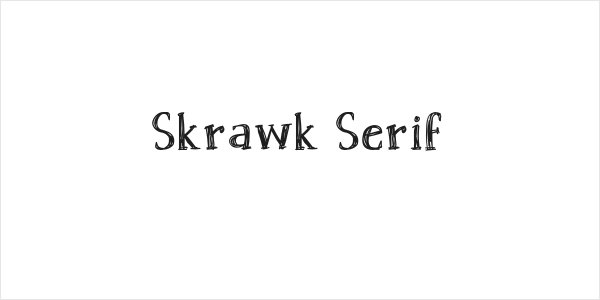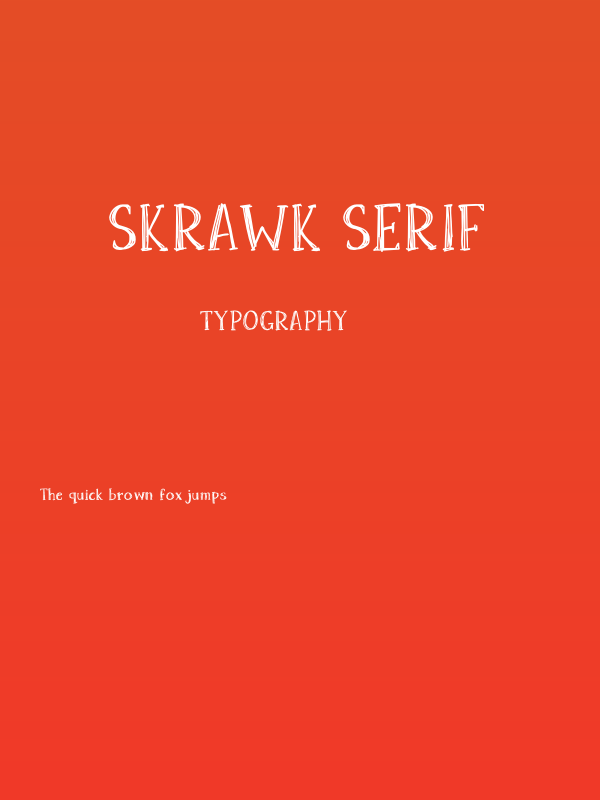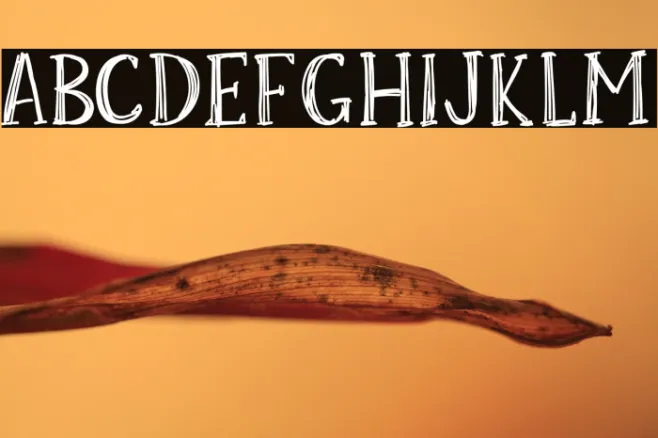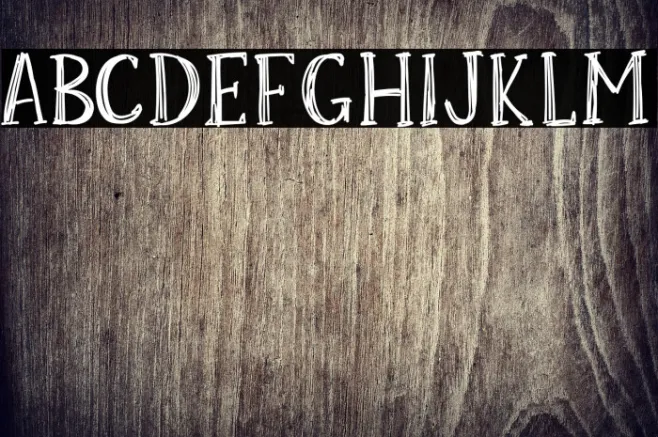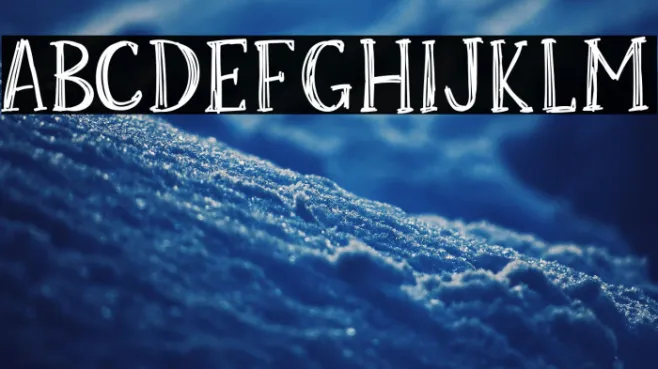
Skrawk Serif Font
Skrawk Serif Description
This font features a playful and artistic design with a hand-drawn appearance. The characters are bold and slightly irregular, giving them a whimsical and informal feel. Each letter has a unique, sketch-like texture with varying line thicknesses, adding to its dynamic and lively character. The font maintains a consistent baseline, but the heights and widths of the letters vary, contributing to its casual and creative style. The numbers and special characters follow the same artistic theme, making it suitable for projects that require a fun and engaging look.